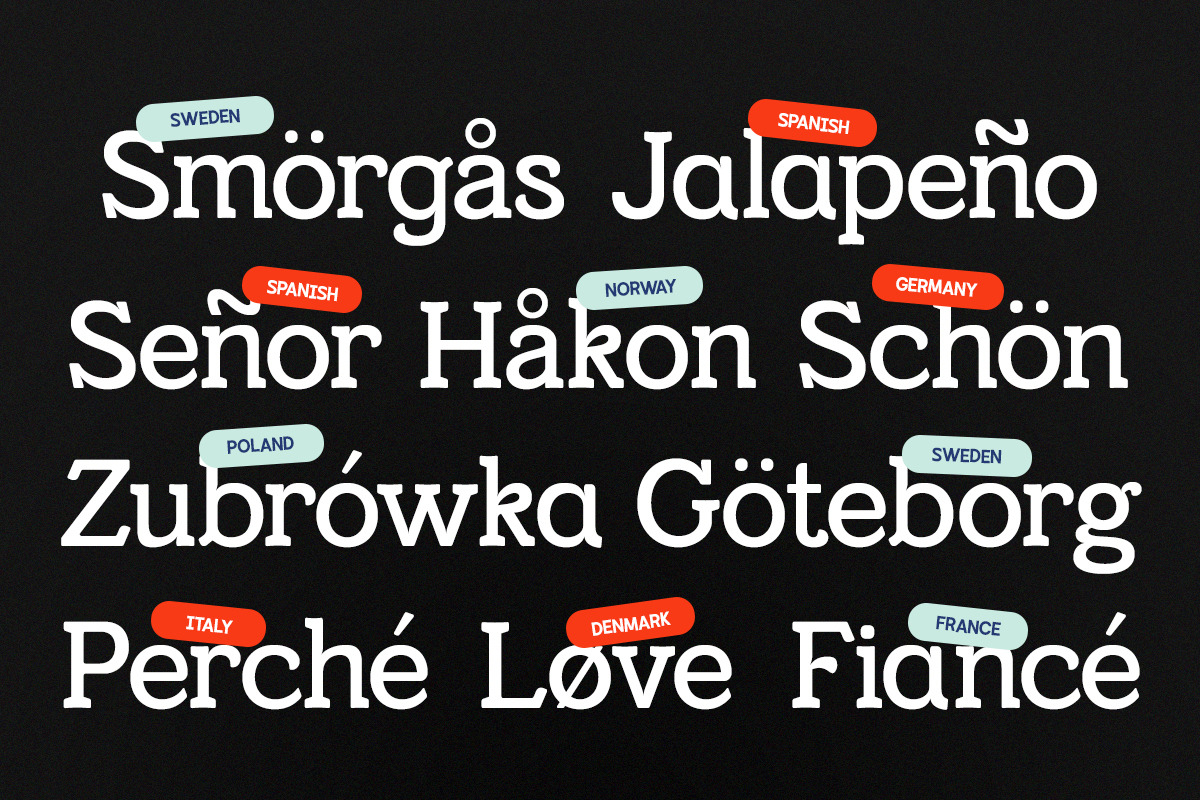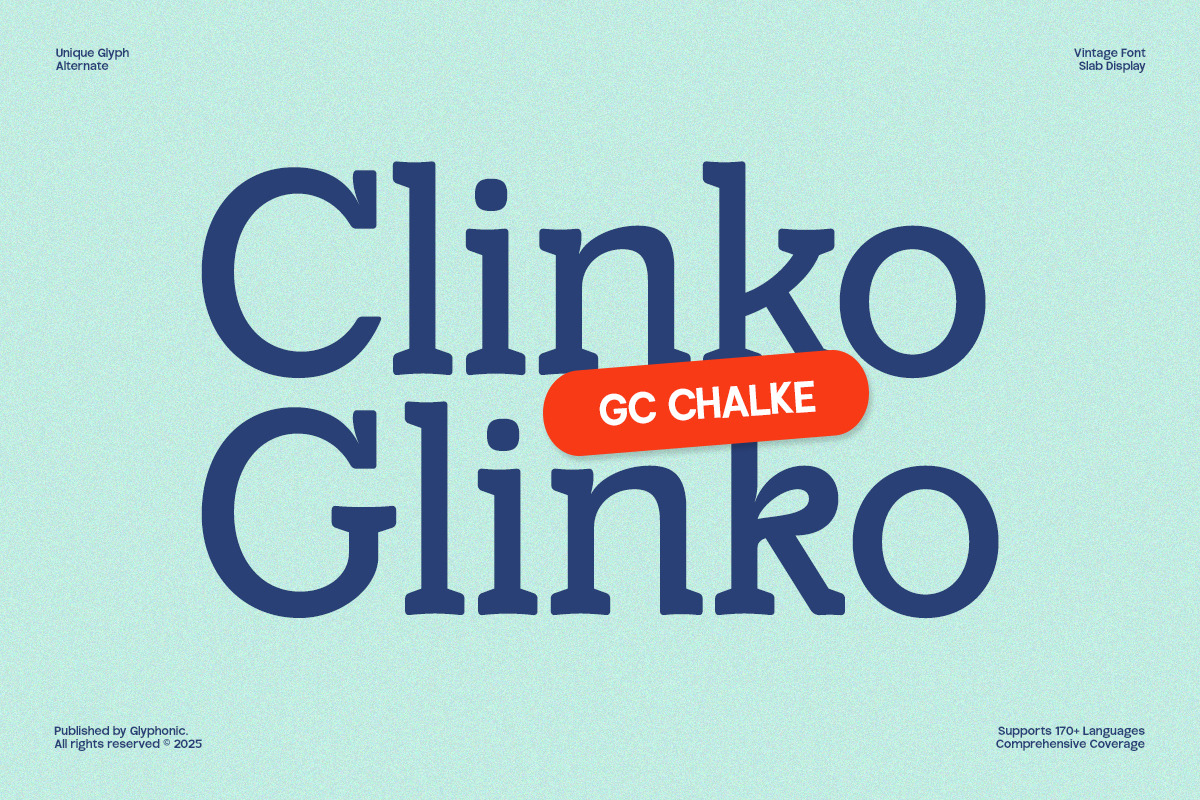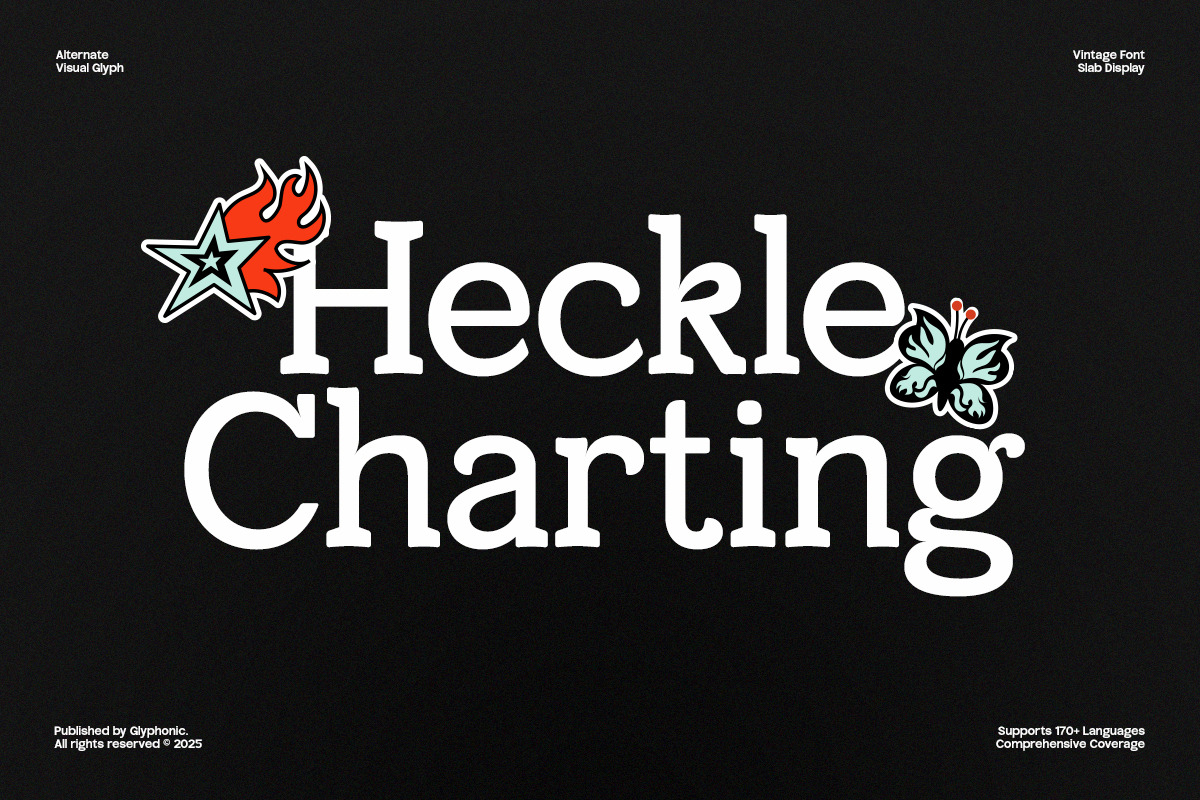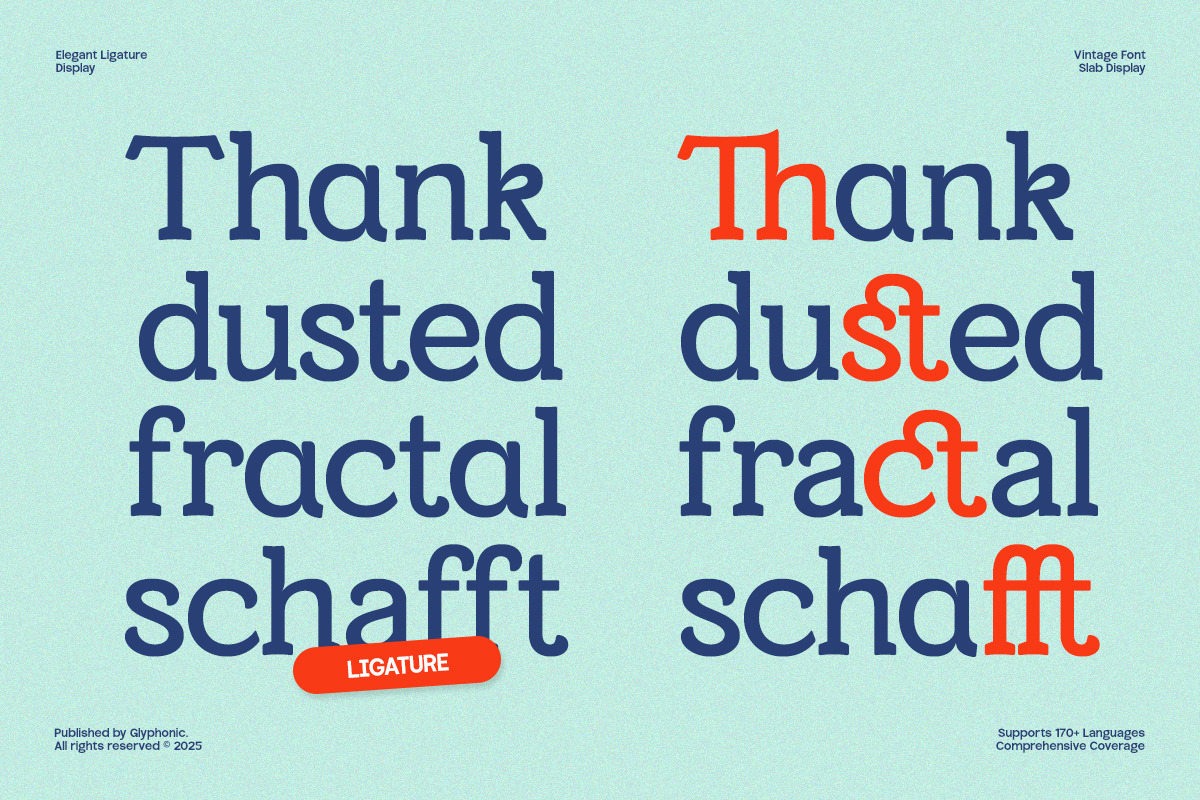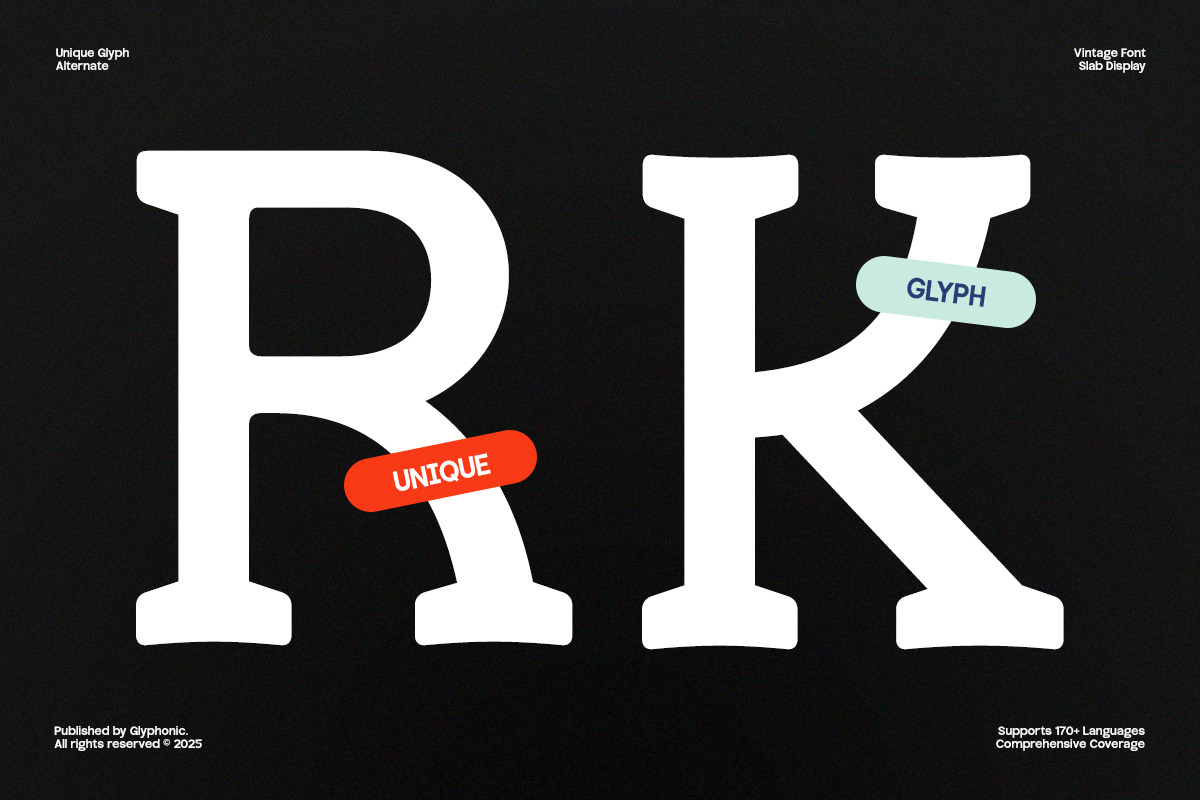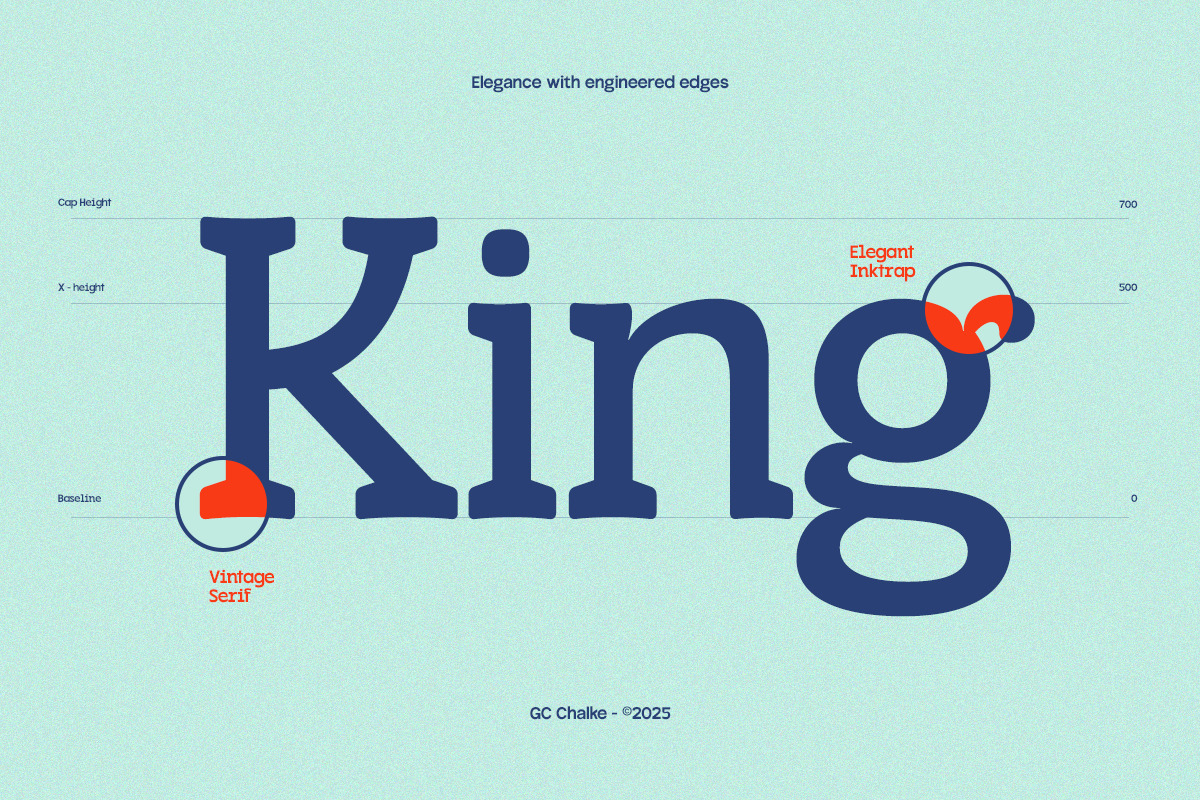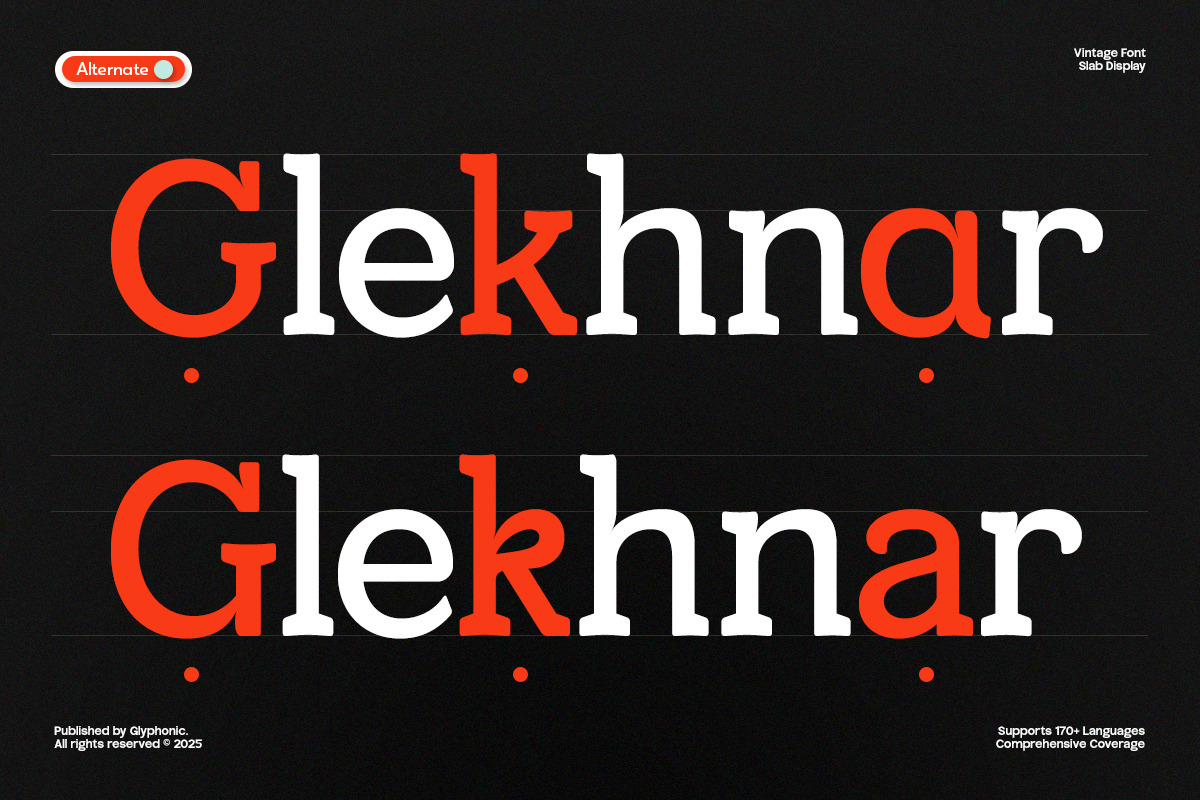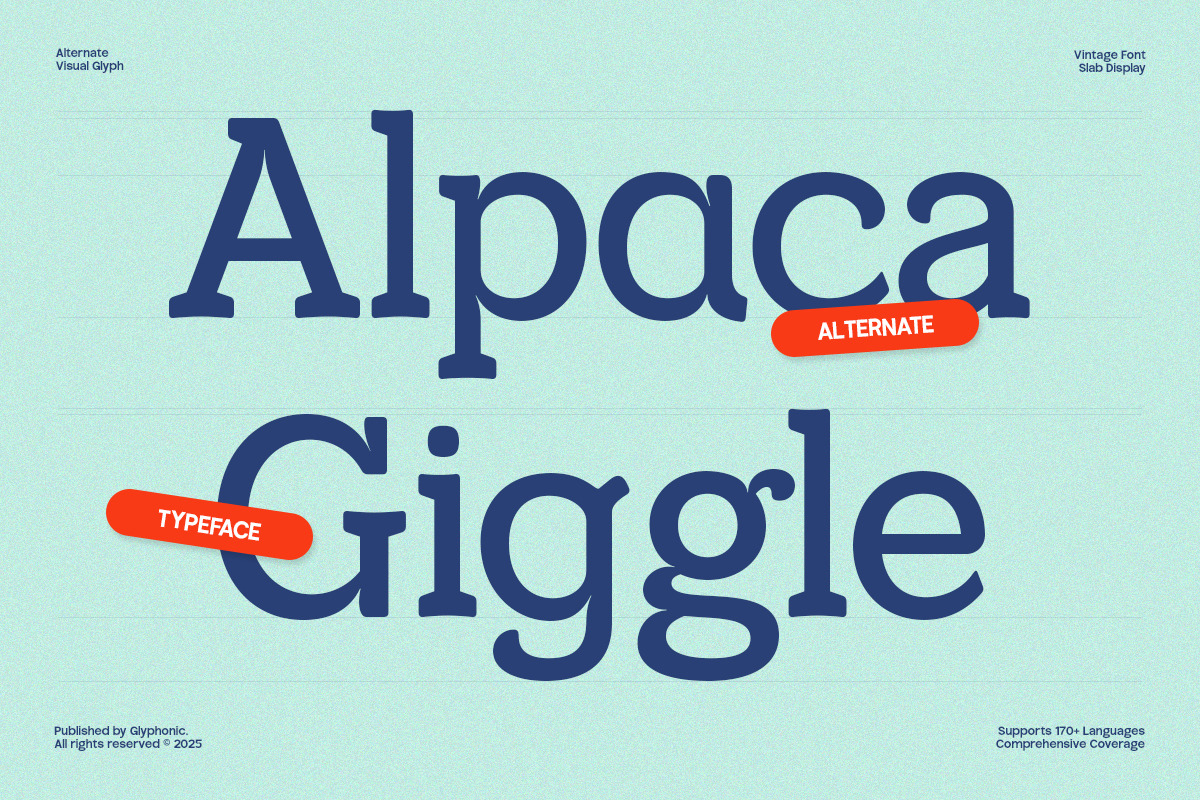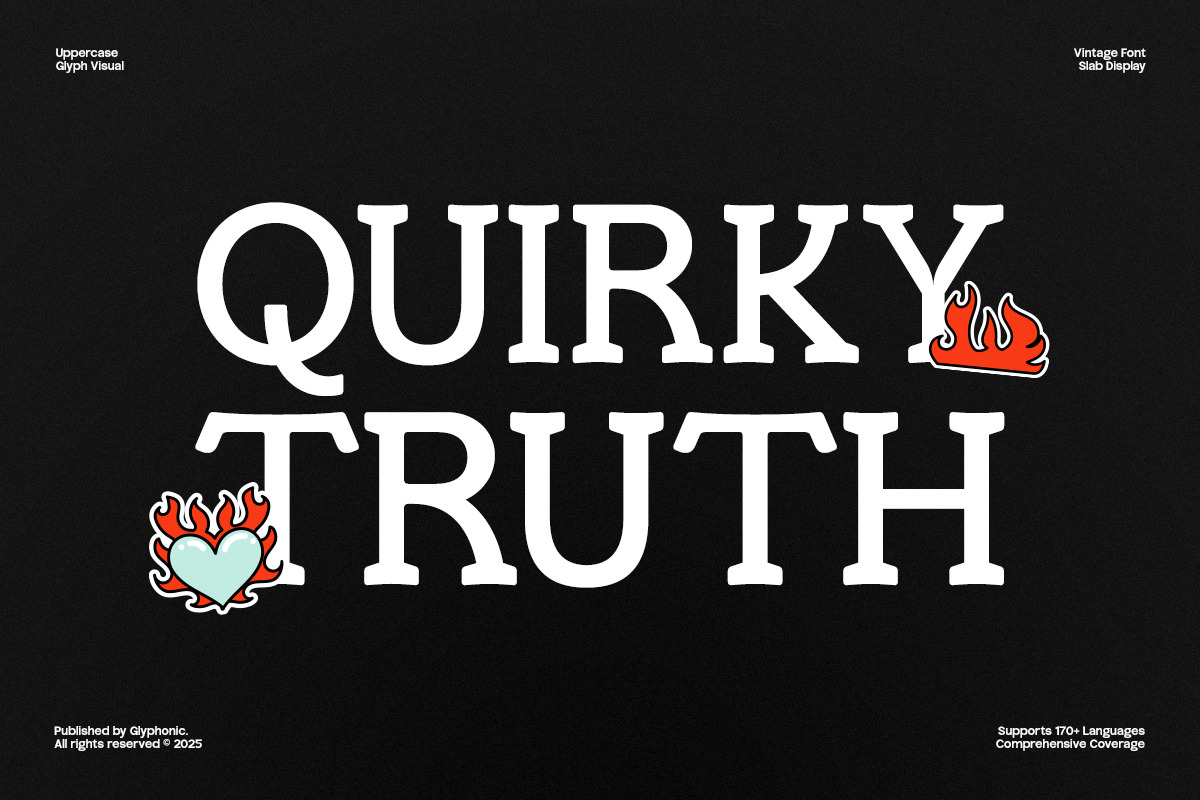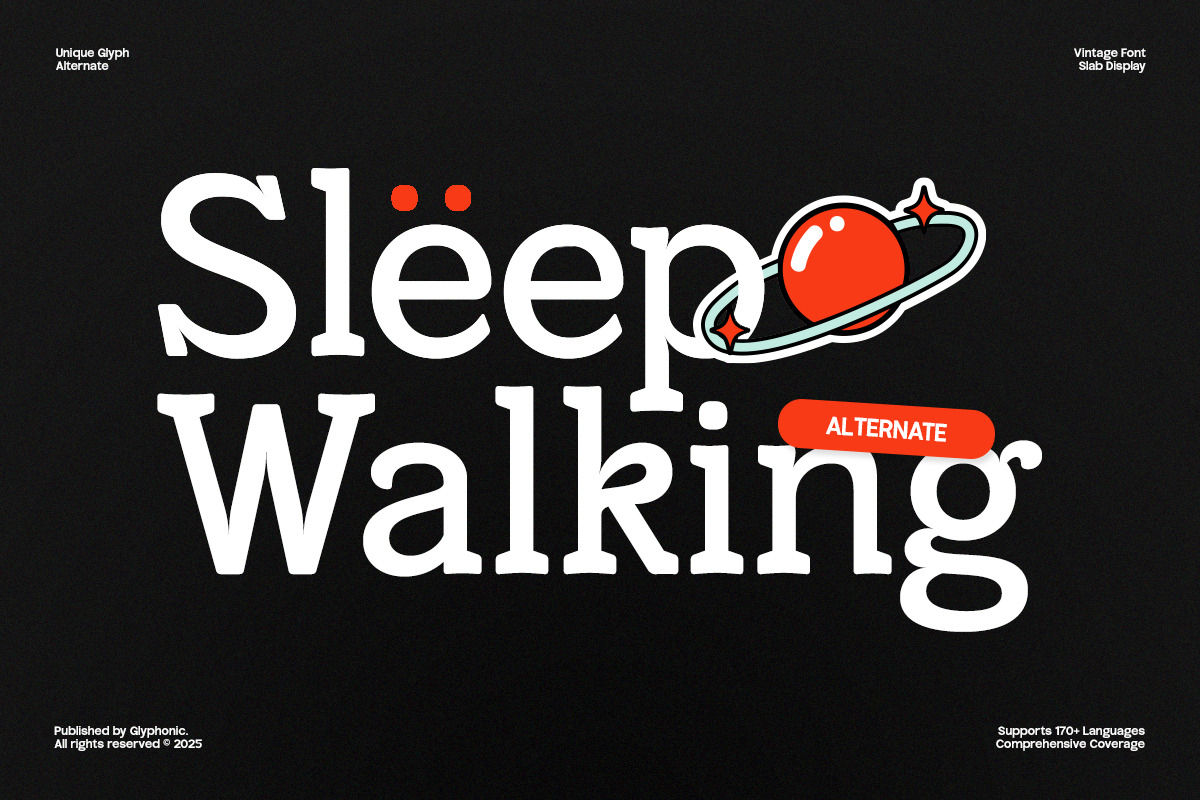
GC Chalke – Refined Slab Display
GC Chalke is a refined slab serif display typeface that blends classic structure with playful sophistication. Designed to feel bold yet approachable, it’s perfectly suited for headlines, branding, logos, packaging, editorial layouts, and retro-inspired visuals. This font is crafted to leave a charming and confident impression.
With its thick slab serifs, balanced proportions, and soft curves, GC Chalke brings personality and subtle elegance to any design. Whether you're designing for vintage-themed projects, creative branding, or standout editorial work, this typeface offers versatility with character.
- Ligatures & Stylistic Alternates
Make your design bold, refined, and timeless with GC Chalke.